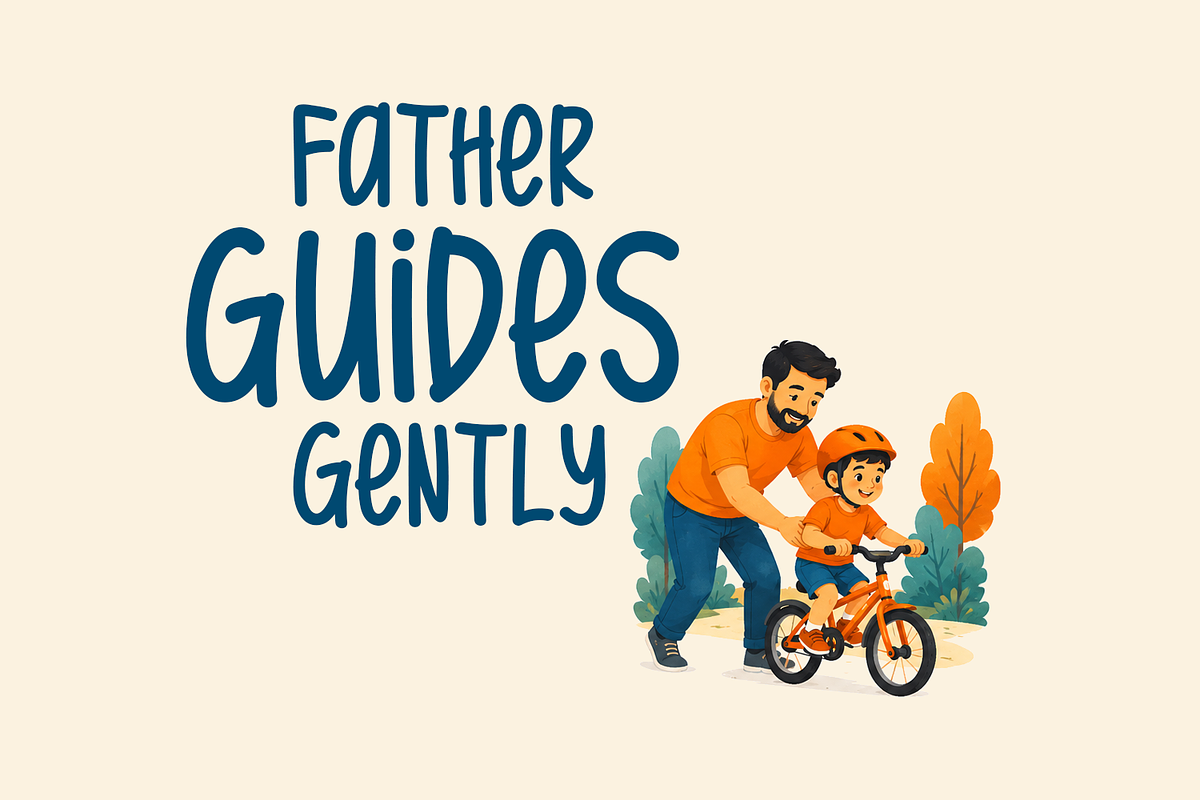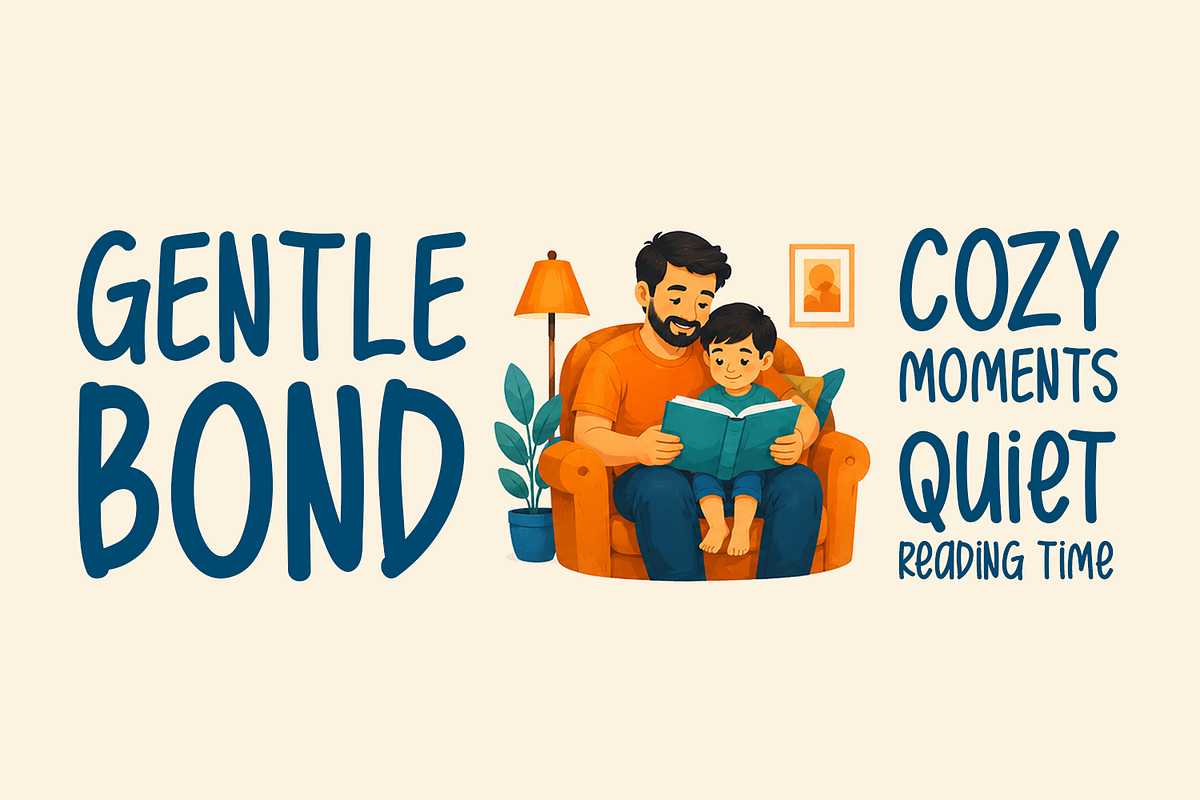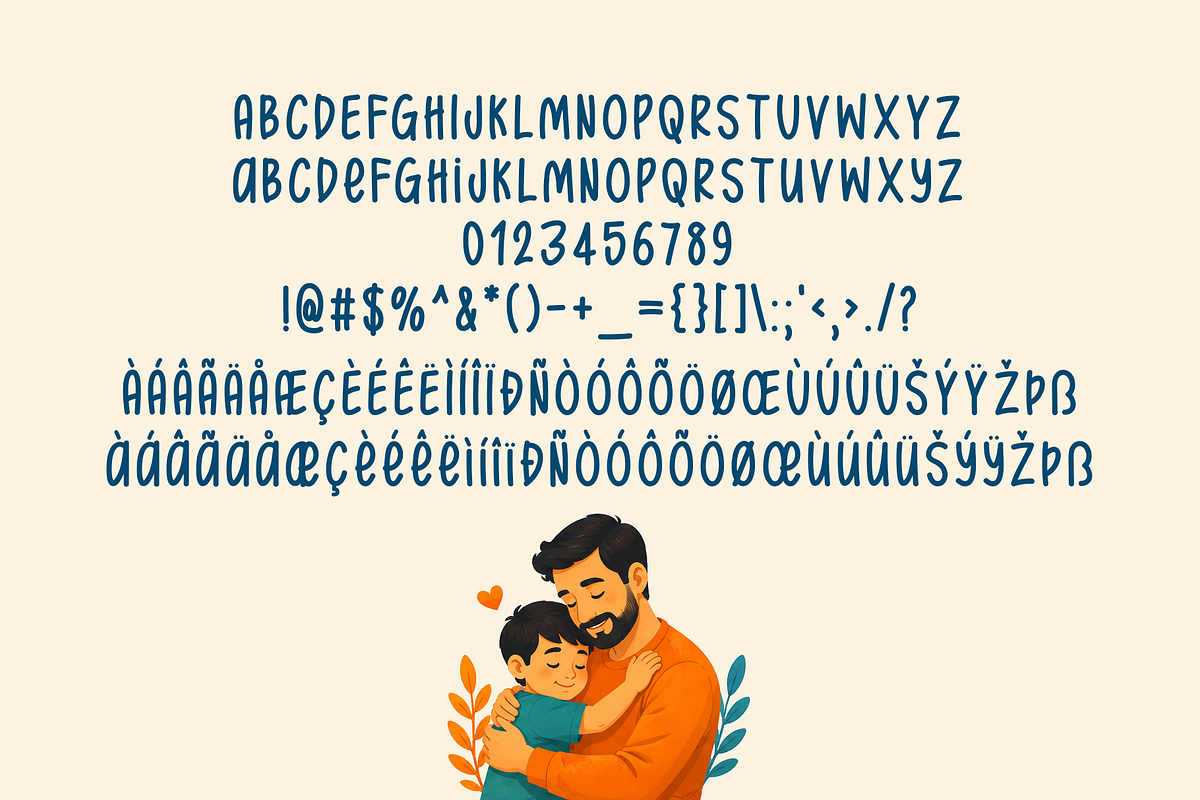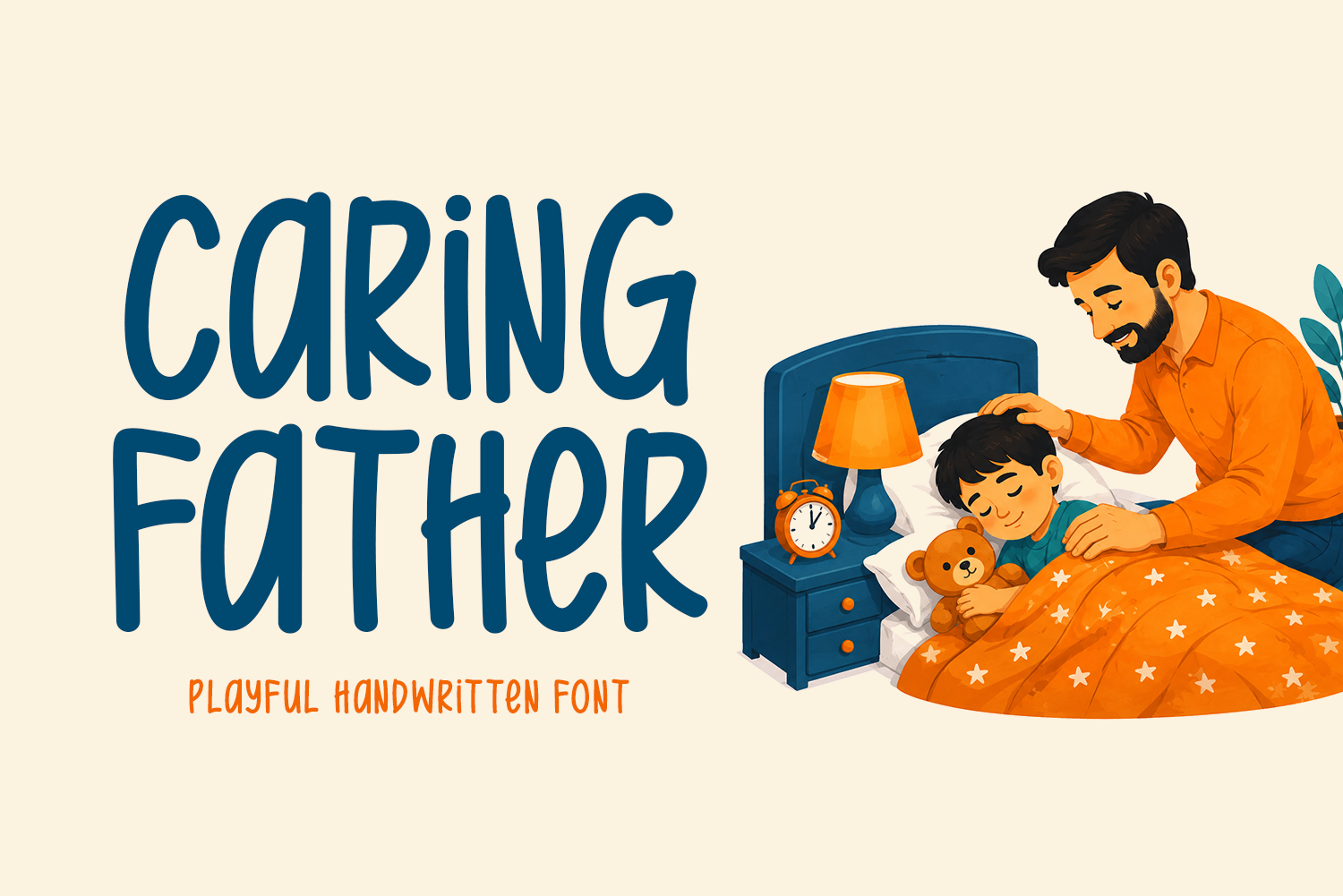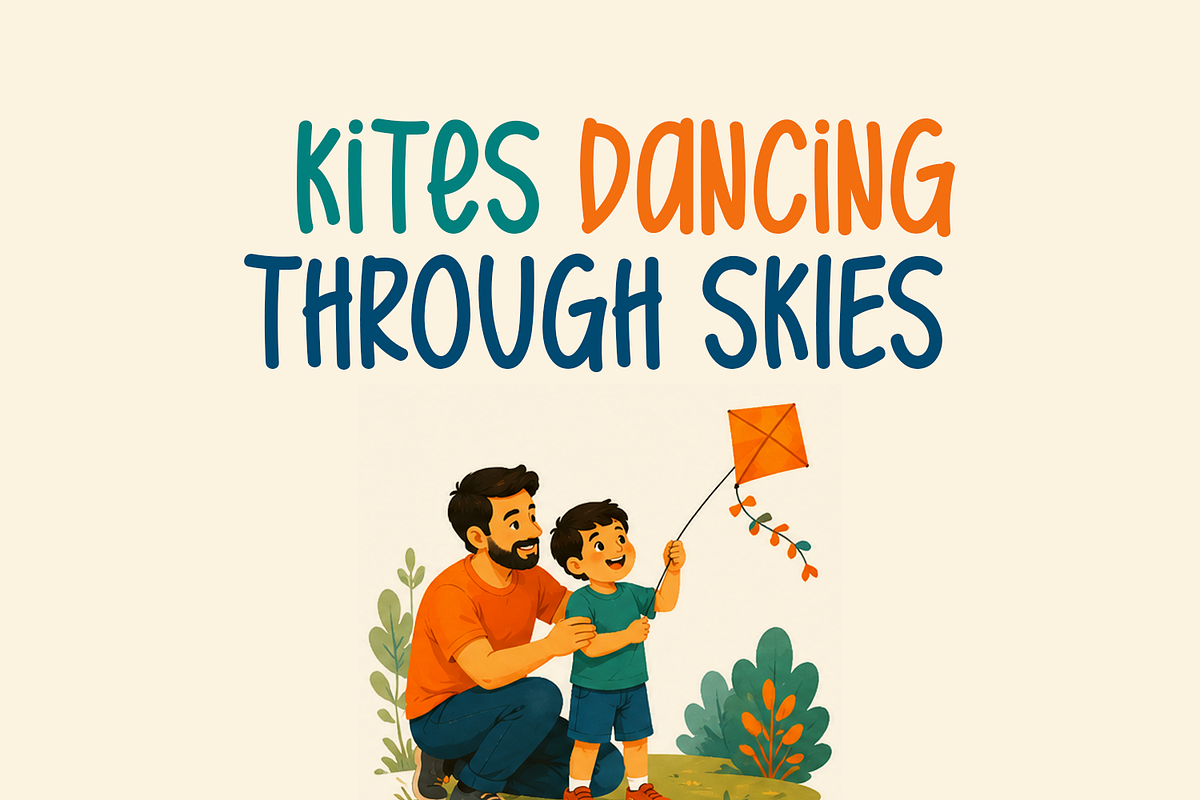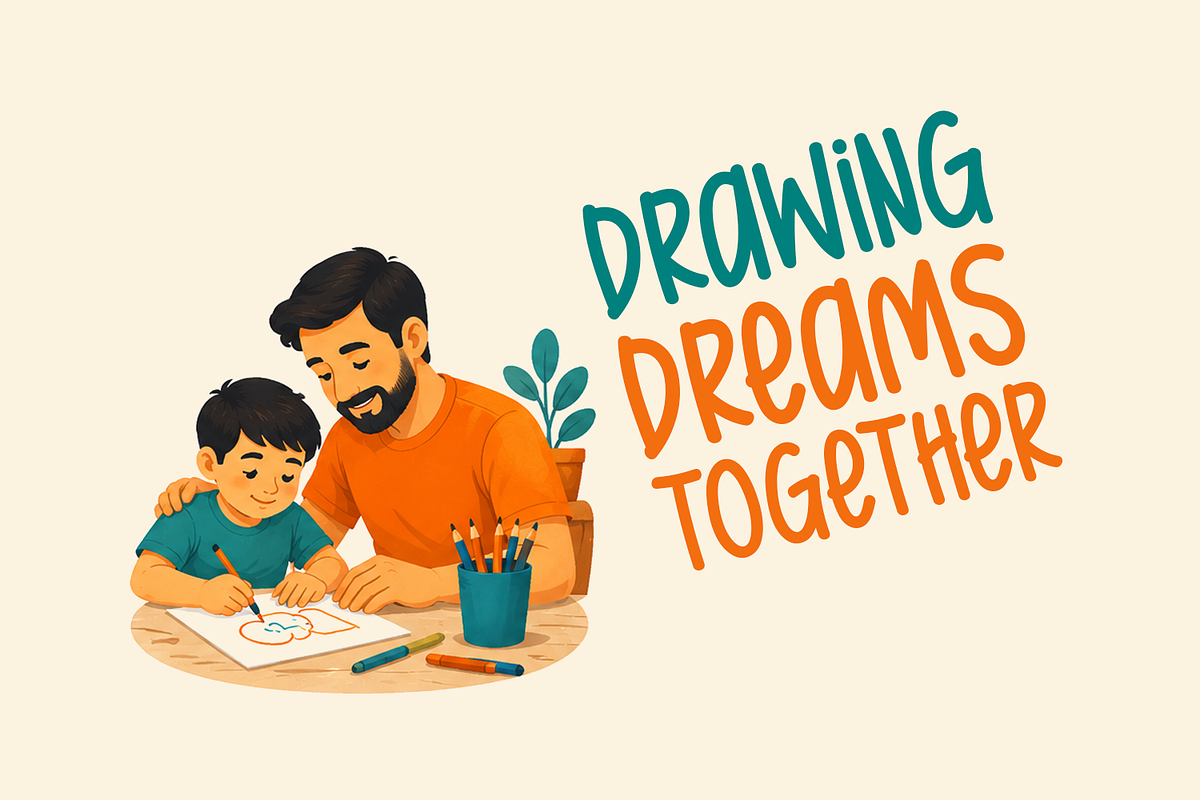
Caring Father Typeface
Introducing Caring Father!
Caring Father is a warm and heartfelt handwritten font inspired by love, comfort, and family bonding moments. Its smooth curves and playful personality make it perfect for children’s projects, greeting cards, t-shirt designs, posters, nursery decor, branding, social media graphics, invitations, photo overlays, and emotional storytelling designs. Caring Father brings a soft, friendly, and loving touch to every creative project with a natural handwritten feel.